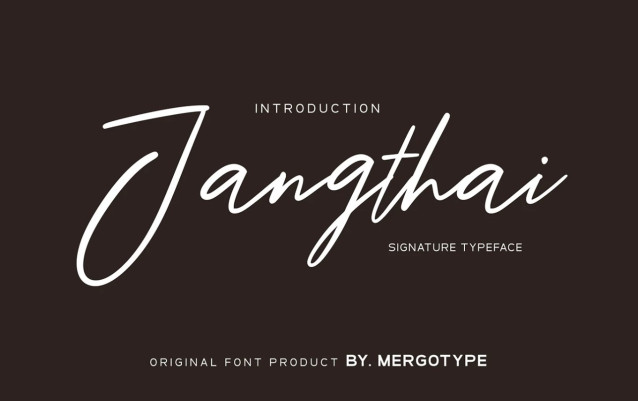
Jangthai Handwritten Font
Jangthai Handwritten Font is a nice handwritten signature font. It gives a complete authentic feel to your text. Perfect for logo as well as caption and long text. It’s a smooth and clean-designed font.